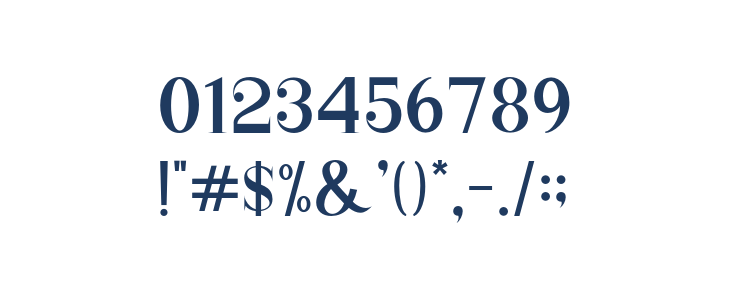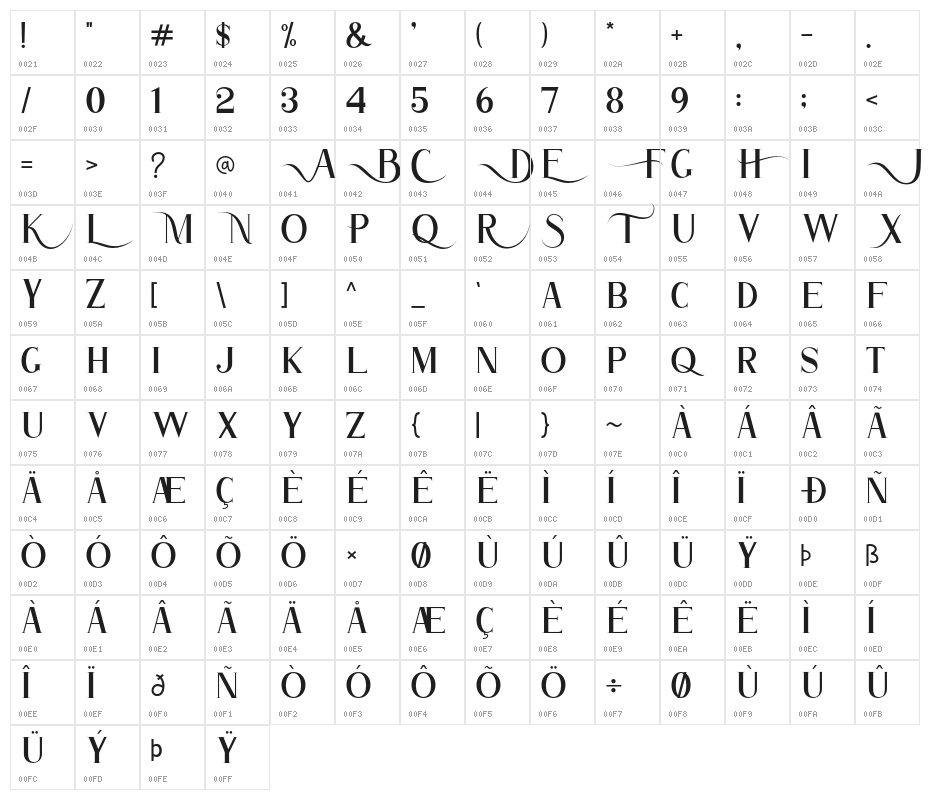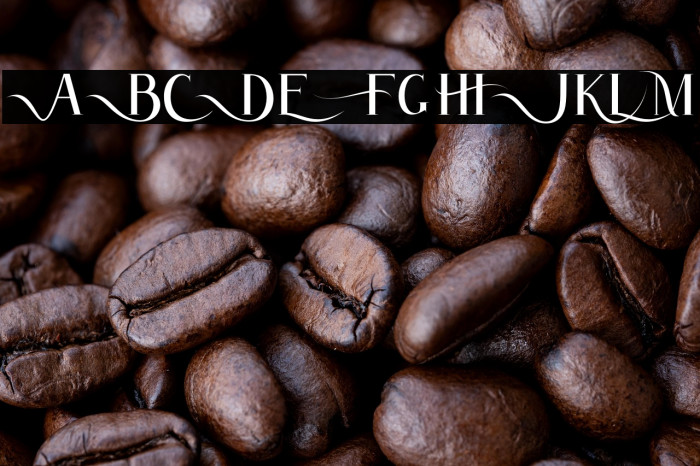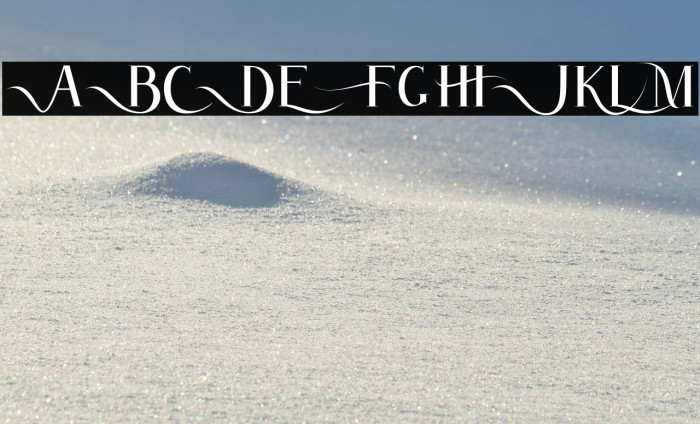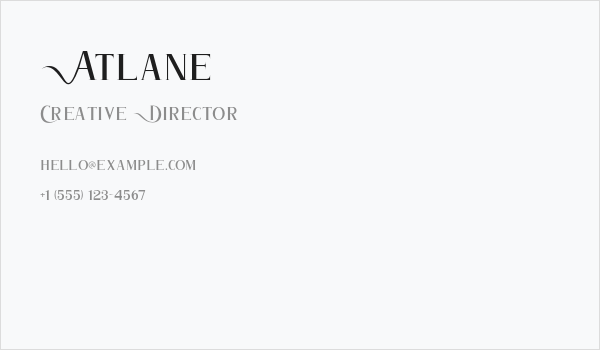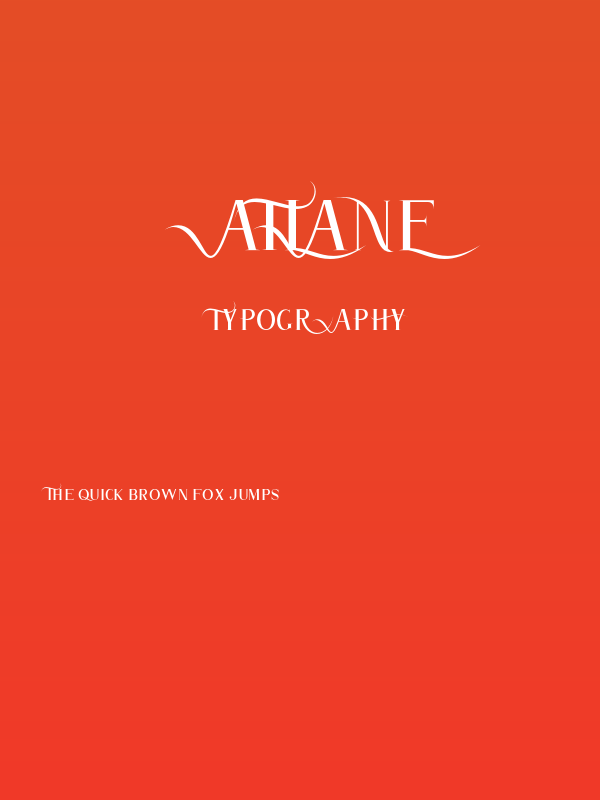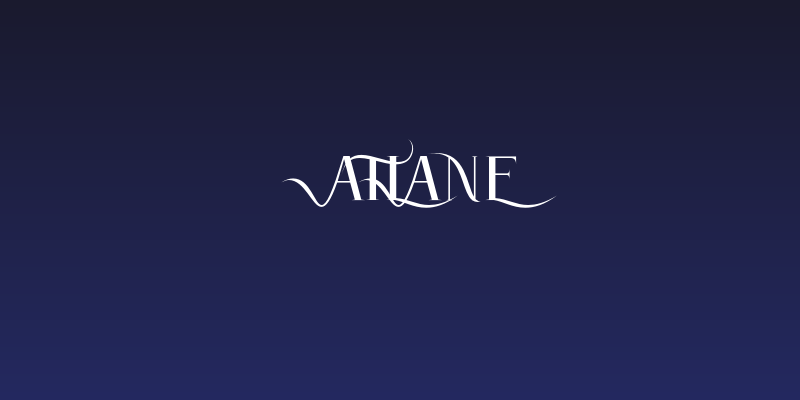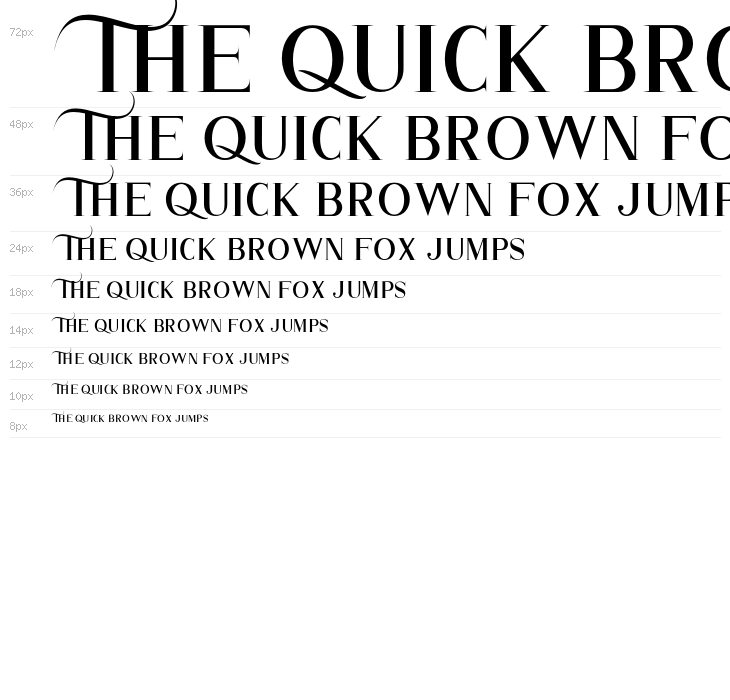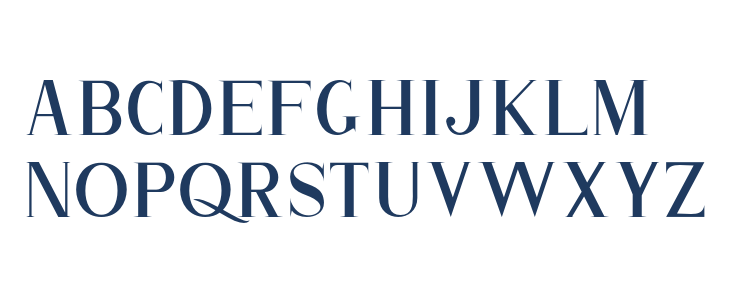
Atlane Font
Atlane Description
This font features a sophisticated blend of elegance and modernity, characterized by its unique swashes and flourishes on the uppercase letters. The serif style is prominent, providing a classic touch, while the overall design maintains a contemporary feel. The uppercase letters are adorned with decorative elements that add a sense of movement and flair, making it ideal for creative and artistic projects. The lowercase letters are more restrained, offering a balanced contrast to the ornate capitals. The numerals are bold and clear, ensuring readability. Special characters are included, maintaining the font's cohesive style.
| Proposed Projects | Ideal for wedding invitations, luxury branding, editorial design, and artistic posters. |